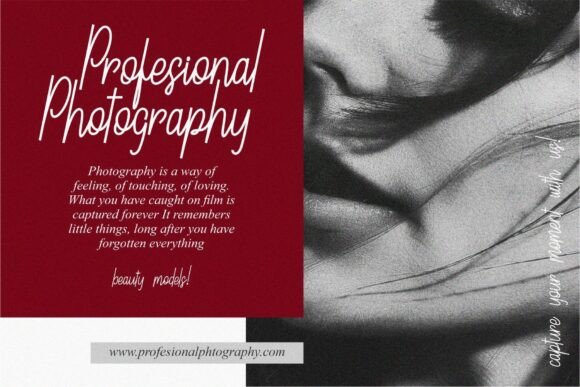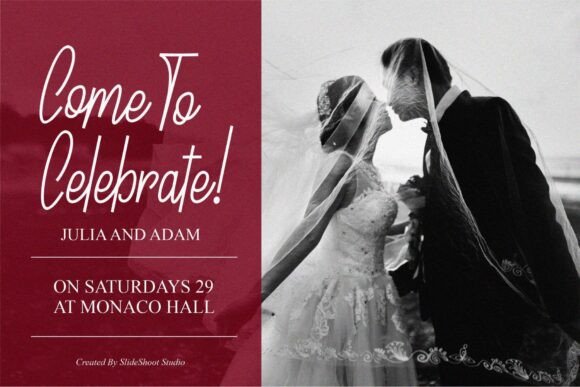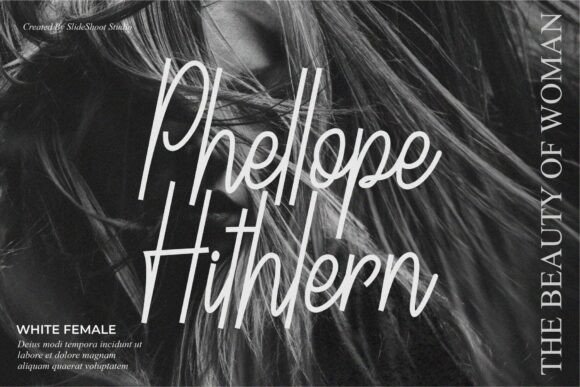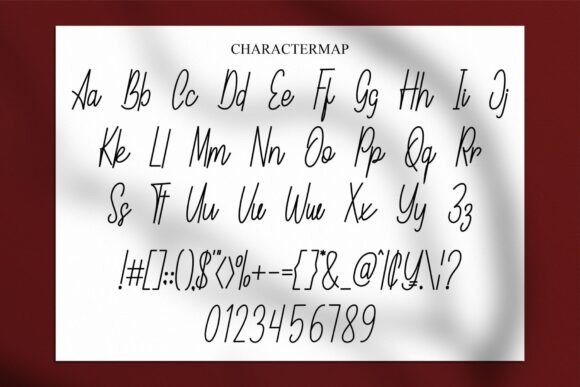
Unleash Your Creativity with Authentic Rebelion Font
Are you tired of using the same old fonts for your design projects? Look no further! Introducing Authentic Rebelion, a stylish handwritten font that’s perfect for designers and crafters who want to add a touch of personality to their work. In this article, we’ll dive into the features and benefits of Authentic Rebelion, and explore how you can use it to take your designs to the next level.
What is Authentic Rebelion Font?
Authentic Rebelion is a beautifully crafted handwritten font that’s designed to help you create stunning visual content. Its unique and stylish lettering makes it perfect for a wide range of projects, including branding, labels, photography, invitations, stationery, wedding designs, social media posts, advertising, product packaging, and more.
Key Features of Authentic Rebelion Font
- Handwritten style: Authentic Rebelion boasts a distinctive handwritten style that’s both elegant and playful.
- Versatile: This font is incredibly versatile and can be used for a variety of projects, from personal to commercial.
- Easy to read: Despite its unique style, Authentic Rebelion is easy to read, making it perfect for body text and headlines.
- High-quality: This font is designed to deliver high-quality results, with crisp and clean lines that look great on any device.
Benefits of Using Authentic Rebelion Font
So, why should you choose Authentic Rebelion for your design projects? Here are just a few benefits of using this amazing font:
- Add a personal touch: Authentic Rebelion allows you to add a personal touch to your designs, setting them apart from the crowd.
- Save time: With Authentic Rebelion, you can create stunning designs in no time, thanks to its ease of use and versatility.
- Increase engagement: The unique style of Authentic Rebelion is sure to grab attention and increase engagement with your audience.
- Stand out: In a world of generic fonts, Authentic Rebelion helps you stand out from the competition and establish your brand identity.
How to Use Authentic Rebelion Font
Using Authentic Rebelion is easy! Here are some ideas to get you started:
- Branding: Use Authentic Rebelion to create a unique logo or brand identity that sets you apart.
- Social media: Add a touch of personality to your social media posts and stories with Authentic Rebelion.
- Wedding designs: Create beautiful wedding invitations, stationery, and decorations with Authentic Rebelion.
- Product packaging: Stand out on store shelves with eye-catching product packaging designed with Authentic Rebelion.
Tips and Tricks for Working with Authentic Rebelion Font
Here are some tips and tricks to help you get the most out of Authentic Rebelion:
- Experiment with colors: Try pairing Authentic Rebelion with different colors to create a unique look.
- Mix and match: Combine Authentic Rebelion with other fonts to create a striking contrast.
- Play with sizes: Use Authentic Rebelion in different sizes to create visual interest.
In conclusion, Authentic Rebelion is a stylish and versatile handwritten font that’s perfect for designers and crafters who want to add a touch of personality to their work. With its unique style, ease of use, and high-quality design, Authentic Rebelion is sure to become a go-to font in your collection. So why wait? Download Authentic Rebelion today and unleash your creativity!